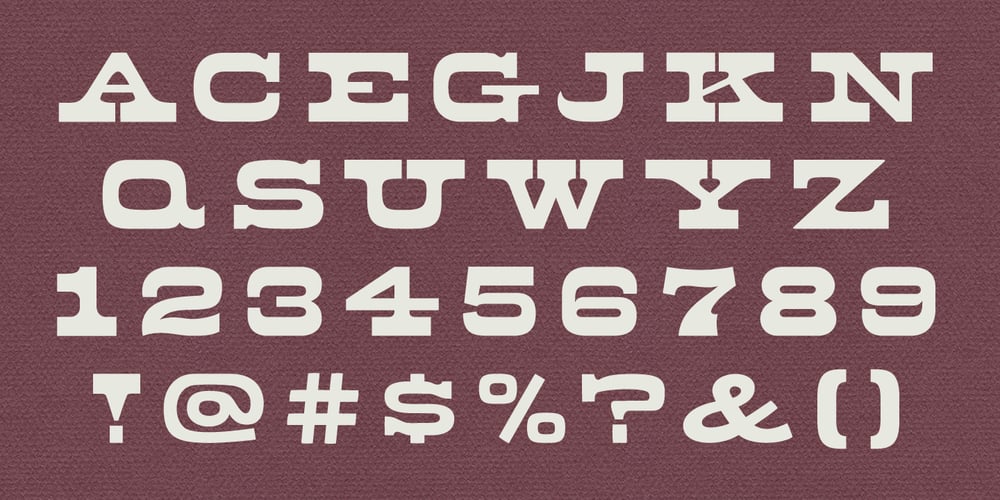
MPI Aldine Extended
MPI Aldine Extended font
MPI Aldine Extended Font Family was designed by published by mpressInteractive. MPI Aldine Extended contains 1 styles and family package options. Based on wood type designed by William H. Page & Company in 1872, Aldine Extended is one of many variations within the Aldine family. The characters are extremely wide relative to their height, and have heavy, thick serifs. Aldine was extremely popular in broadside printing during the late 19th century and conveys America’s enthusiastic westward expansion.